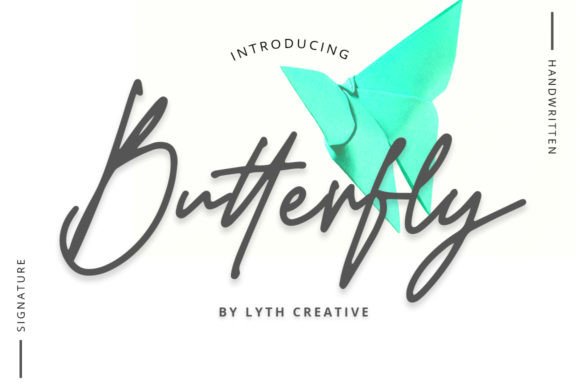
Butterfly Signature Font
Hello guys. This is simple beautiful multipurpose handmade font , It’s perfect for all things design! Introducing Butterfly Font. It’s designed and shared by lyanatha. It’s an exciting handwritten font with signature style. This beautiful script can make your design project look elegant, classy, and modern. This is perfect for all things design! From christmas greetings to wedding invitations, social media posts, blogs, logos, apparel design, typography, and so much more!